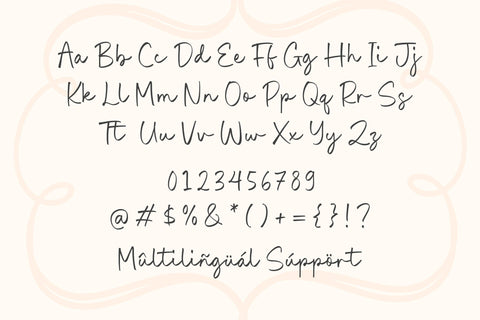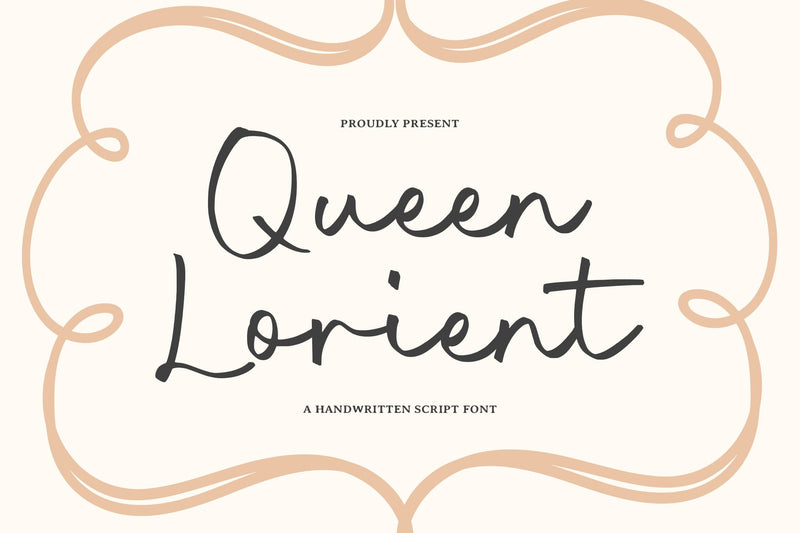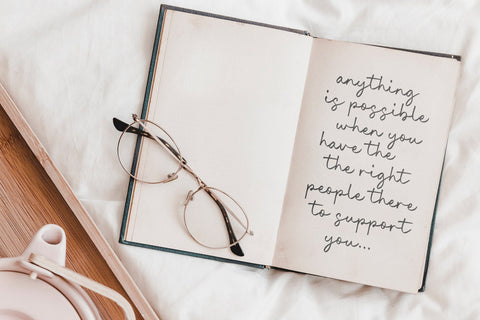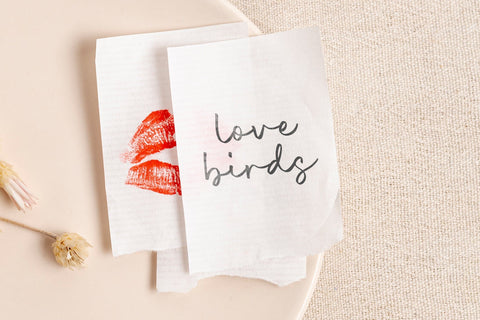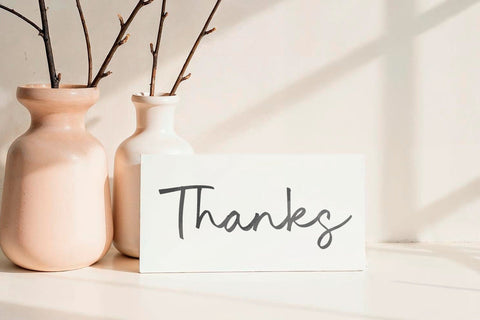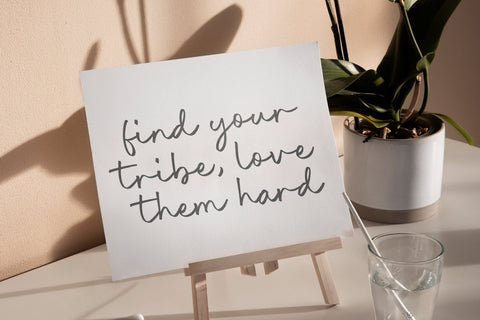
Queen Lorient - Handwritten Script Font
Queen Lorient is a Handwritten Script Font
This font is a elegant handwritten script font that blends classic charm with modern sophistication. Featuring flowing, graceful letterforms and delicate curves, it's perfect for wedding invitations, branding, and luxury design projects. Queen Lorient adds a romantic to any creative work.
Queen Lorient Font also supports multilingualism